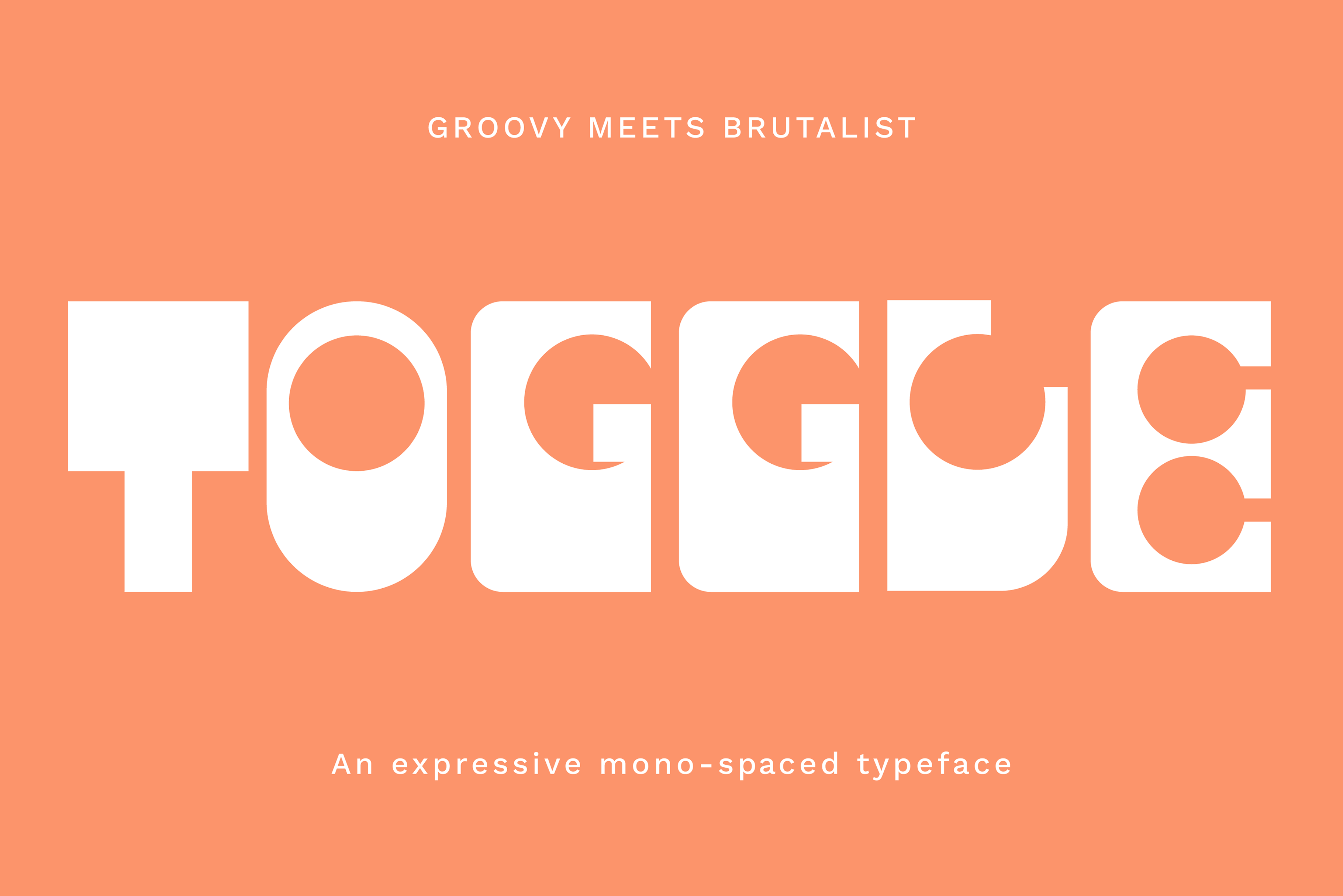
Toggle: a bold modern display font
Toggle is an unapologetically bold, modular, and highly distinctive display font that demands attention. Inspired by the geometric experimentation of the 1970s and infused with a modern, punchy rhythm, Toggle is engineered to give your projects instant attitude and retro appeal.Unrivaled Distinctiveness: Forget blending in. Toggle’s unique construction—mixing hard-edge geometry with unexpected organic cutouts—ensures your headlines will be instantly memorable and unlike anything else on the market.
Optimal for Impact: This is not a body copy font. Toggle is a headline powerhouse, designed for maximum visibility in large formats. Its compressed, heavy weight creates solid blocks of text that communicate strength and confidence.
Retro-Futurist Vibe: Capture the popular retro-groove aesthetic while retaining a sharp, contemporary edge. Toggle is perfect for projects seeking a nostalgic yet cutting-edge identity.
Full A–Z uppercase